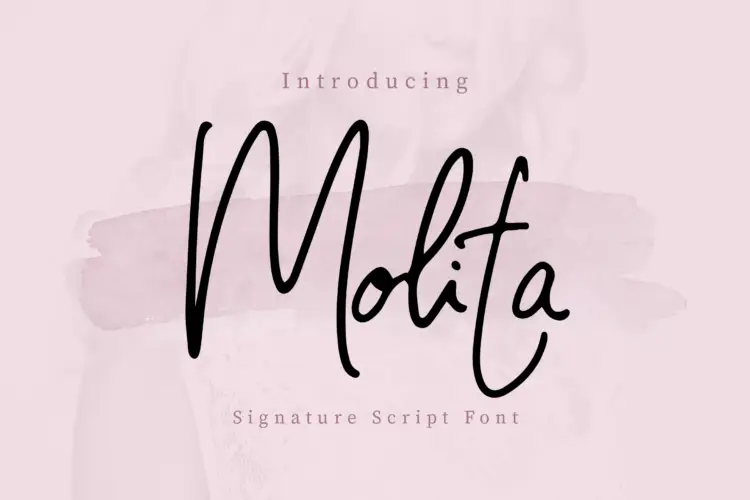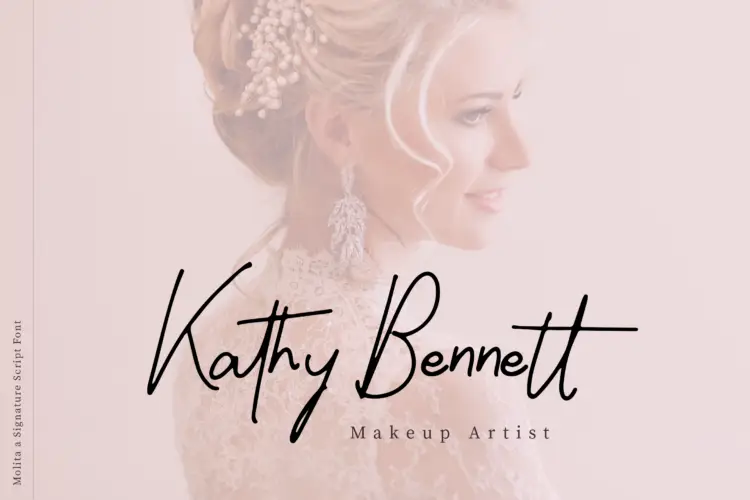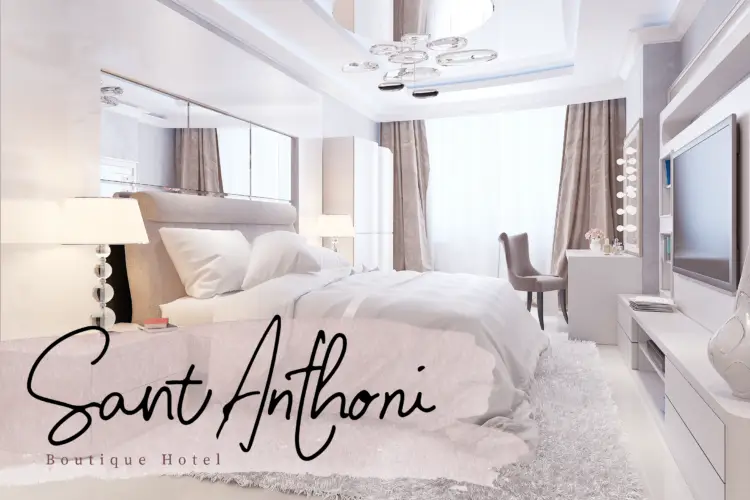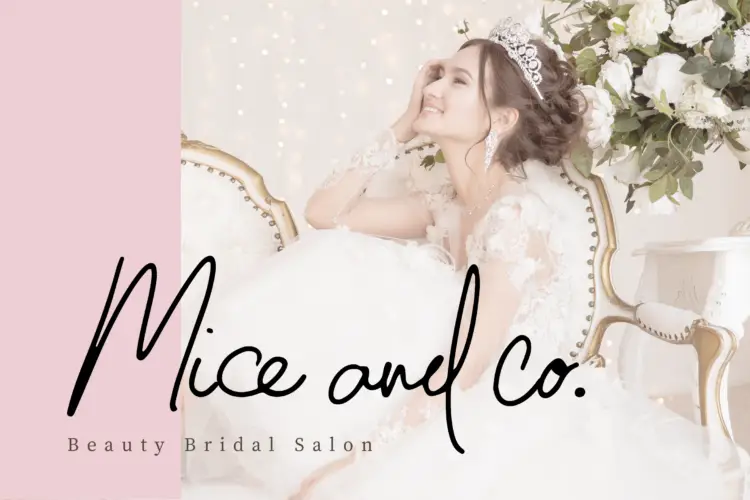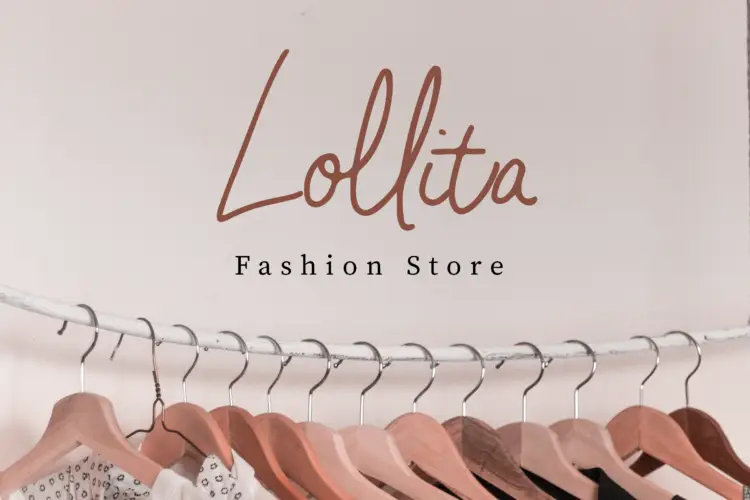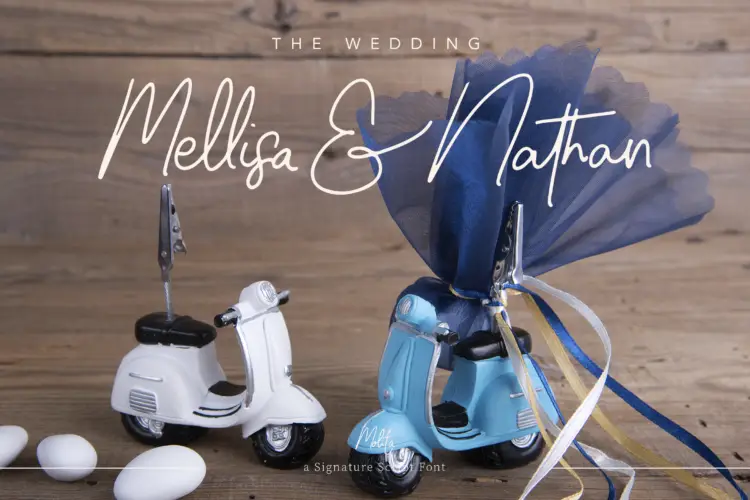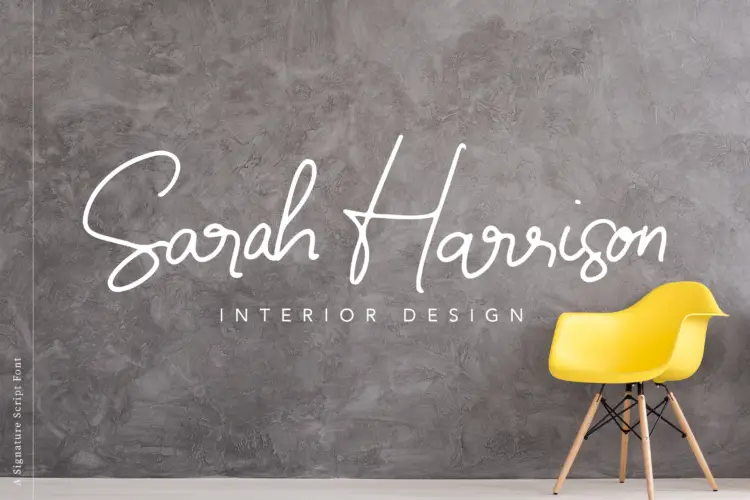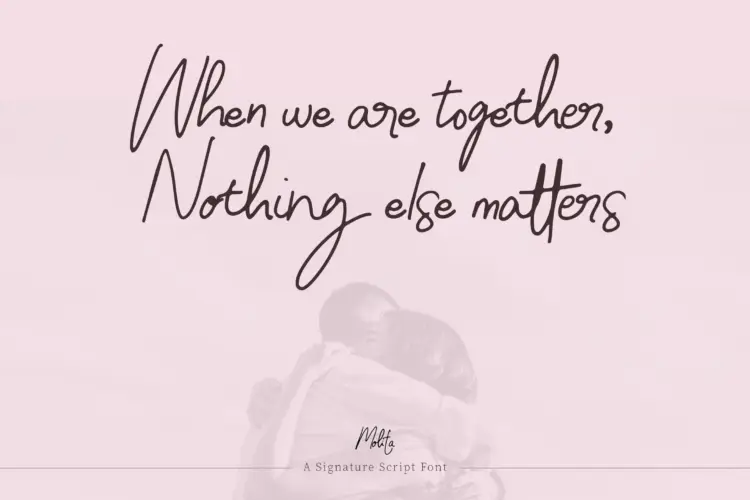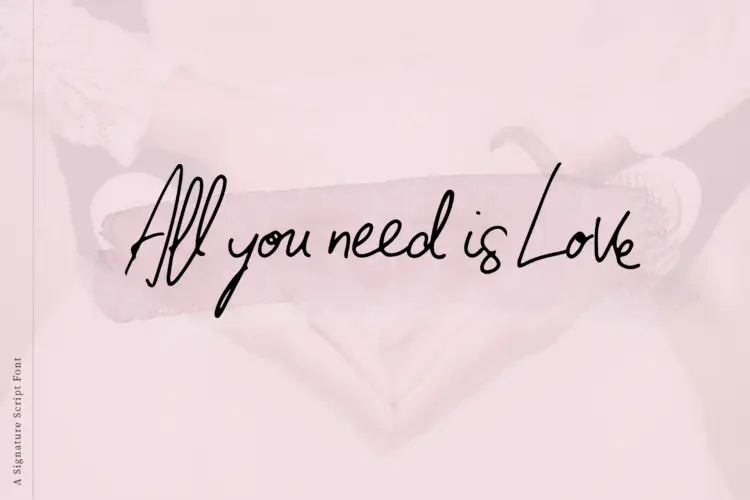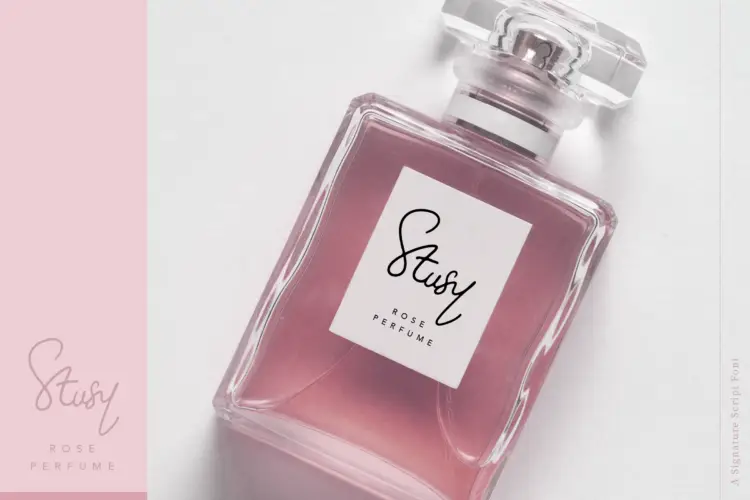
Creating a memorable signature is essential, and you can achieve that with Molita, a signature script font ideal for various branding projects, including logos, presentations, product packaging, and more. This versatile font is also perfect for wedding and fashion themes, business cards, boutiques, hotels, or as a stylish text overlay on any background image.
The product package includes a complete set of uppercase and lowercase letters, punctuation, and numbers, along with 71 stunning ligatures that enhance the elegance and beauty of your signature. These ligatures will also help you create eye-catching quotes for your social media.
- Uppercase & Lowercase letters
- Numbering and Punctuation
- 71 Stunning Ligatures
- Alternative fonts